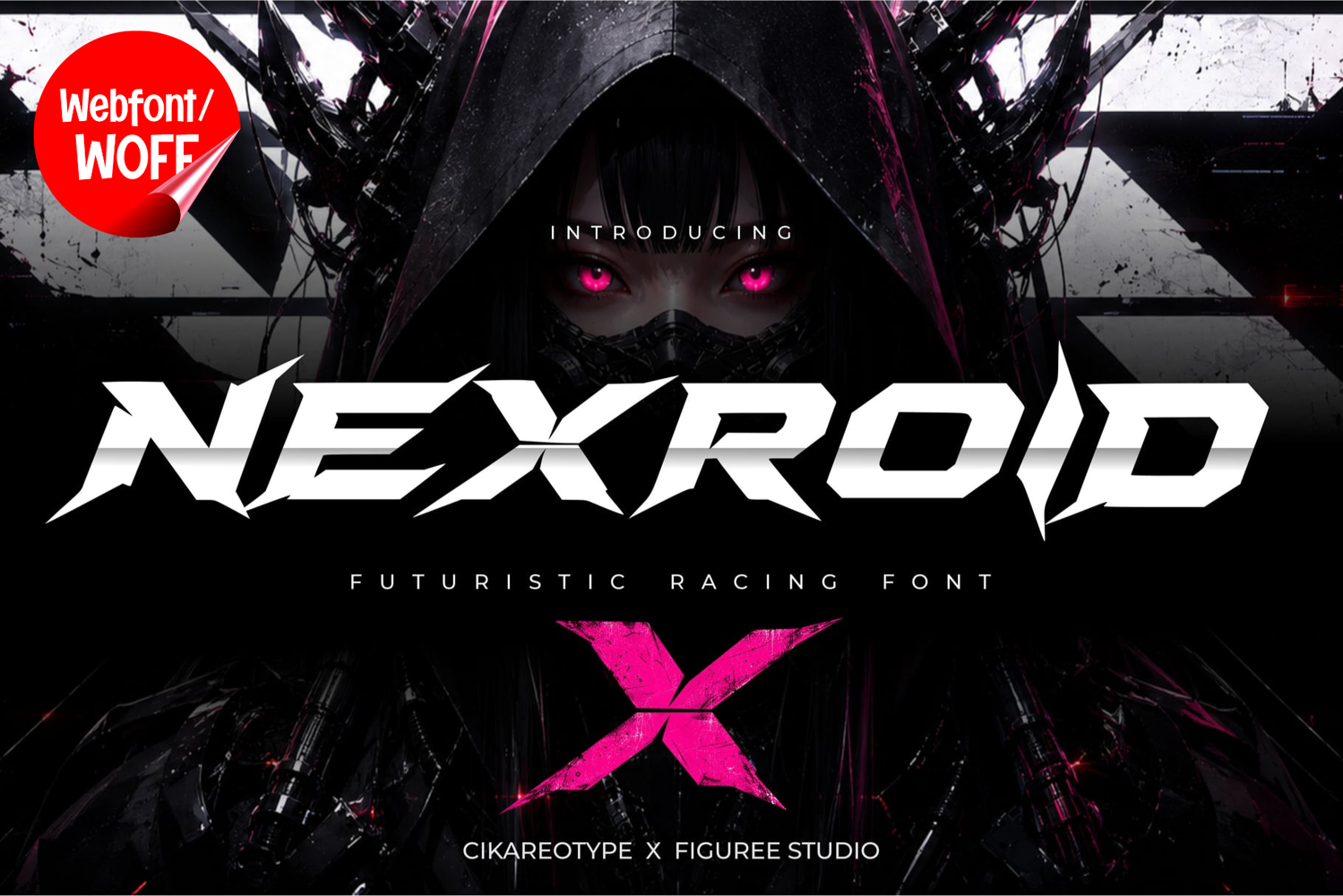
Nexroid - Powerful Futuristic Racing Webfont
Nexroid is a powerful futuristic racing webfont created for websites that need a bold sense of speed, technology, and performance. Its sharp geometric uppercase characters bring an energetic motorsport-inspired identity to digital interfaces, making it ideal for automotive websites, racing teams, esports platforms, gaming projects, sports brands, technology companies, and futuristic creative studios.
Nexroid works especially well for website hero headlines, brand names, navigation titles, promotional banners, product names, event titles, racing statistics, campaign graphics, and high-impact call-to-action sections. Its strong display character allows important text to stand out clearly while giving the overall website a modern and performance-focused atmosphere.
The futuristic construction pairs naturally with dark interfaces, automotive photography, digital dashboards, racing visuals, metallic textures, speed effects, neon-inspired layouts, and modern sports branding. It can be used to establish a consistent visual identity across landing pages, campaign websites, online portfolios, product showcases, gaming communities, and motorsport-related platforms.
Nexroid includes uppercase characters, multilingual support, numbers, and punctuation, providing a versatile character set for international websites and digital content. The clean geometric structure also makes it suitable for responsive layouts where strong typography is needed across desktop and mobile screens.